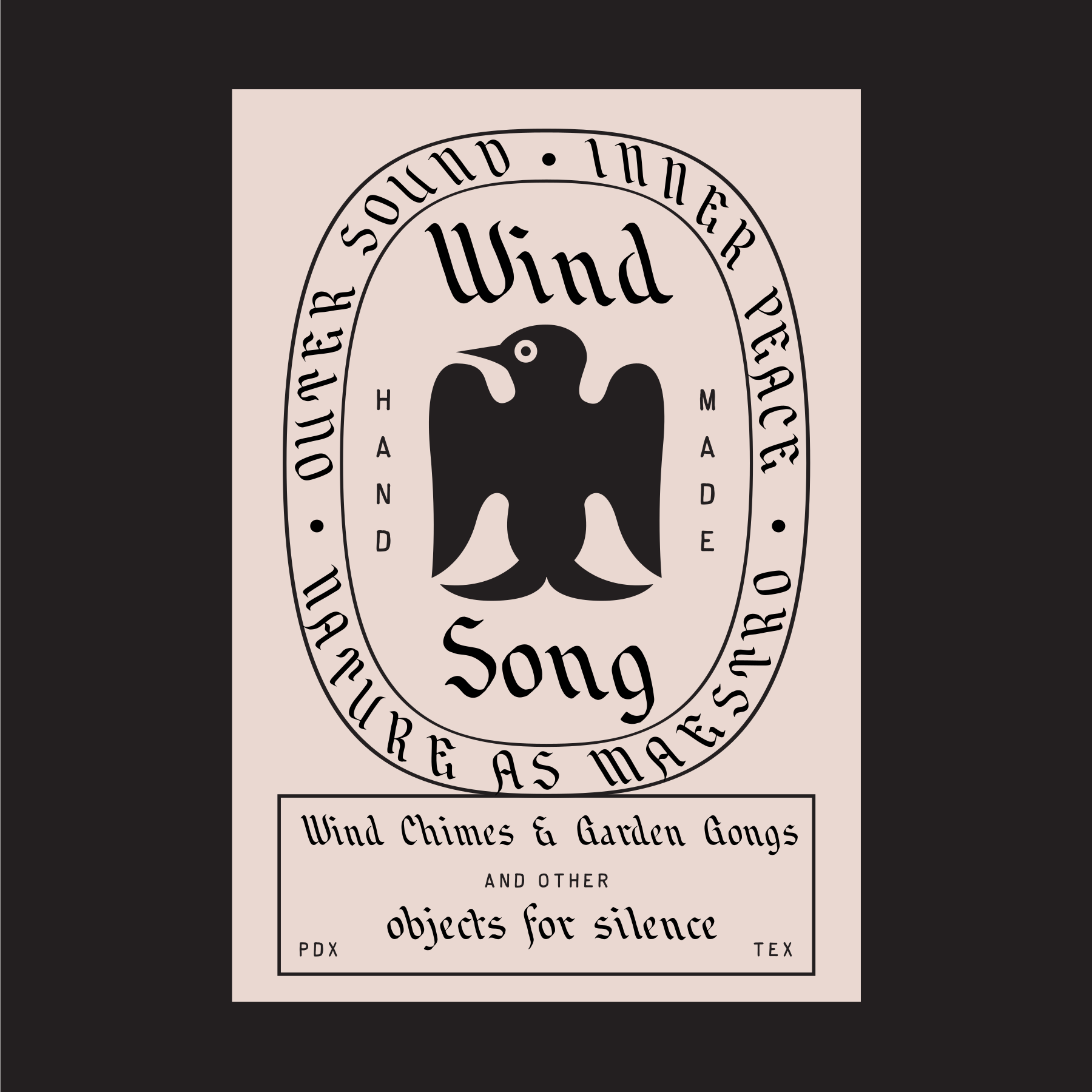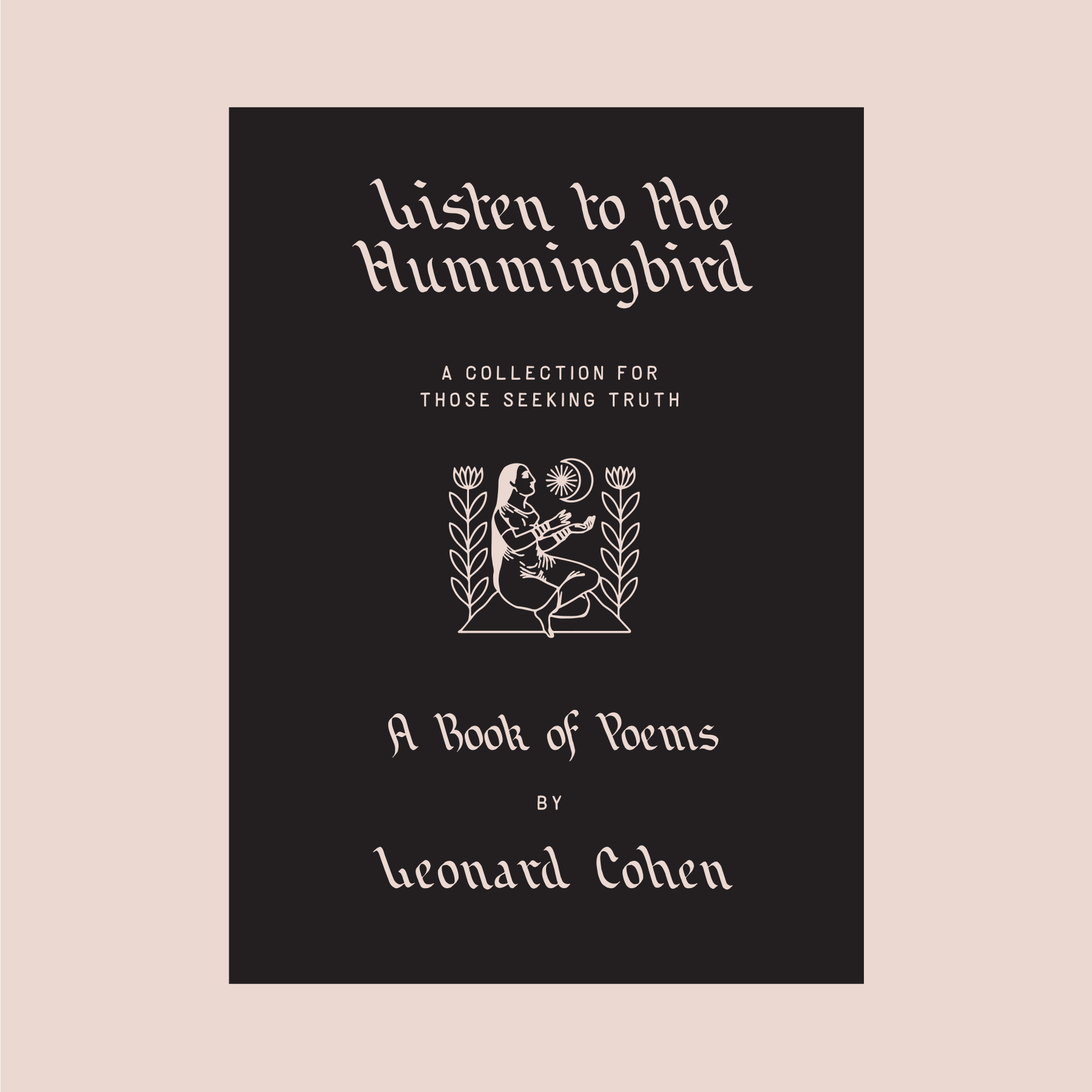
Brother Wind
Ah, the serenity letter forms can evoke. A branch swaying gently, a plume of incense floating, a weightless seed drifting in the breeze that knows no hurry. Reclined but upright, Brother Wind breathes with time like a mountain sitting in zazen. The calligraphic flow of Brother Wind listens for answers on the shores of the endless river.